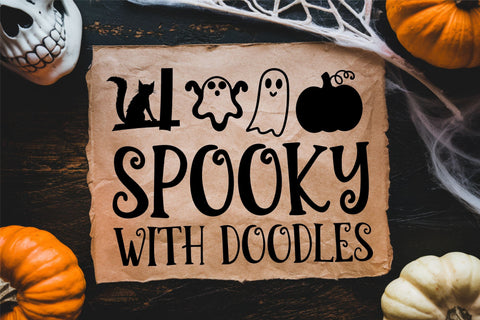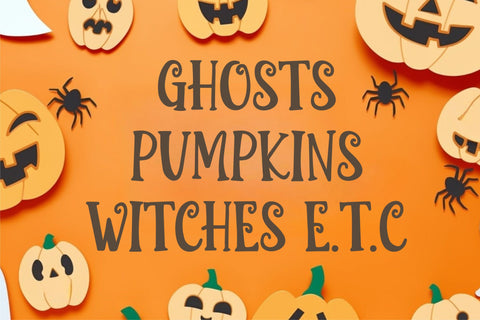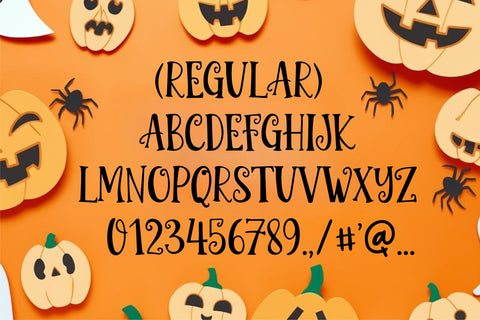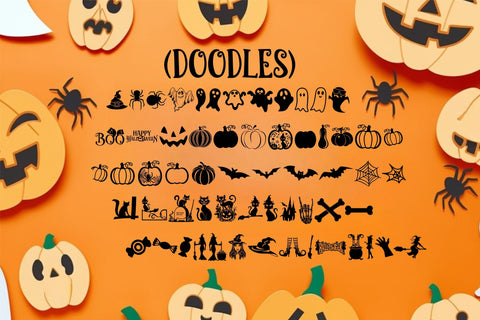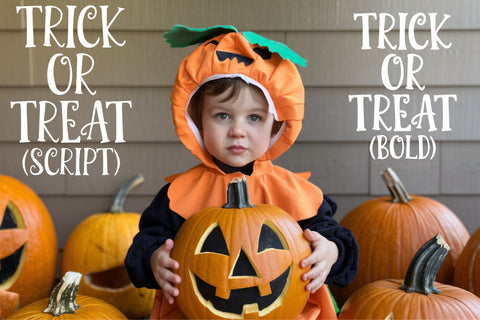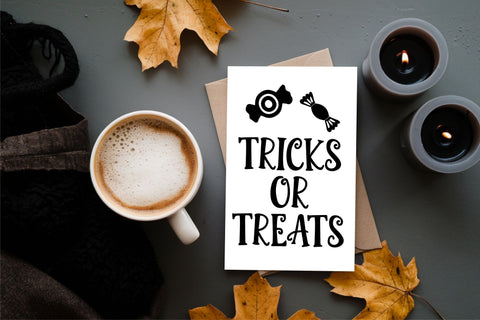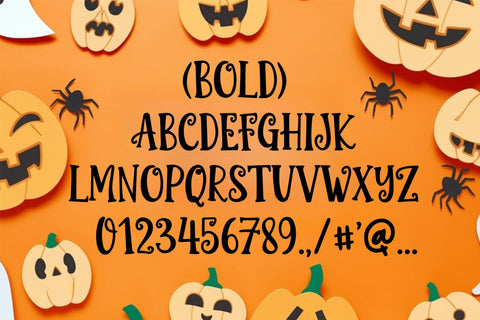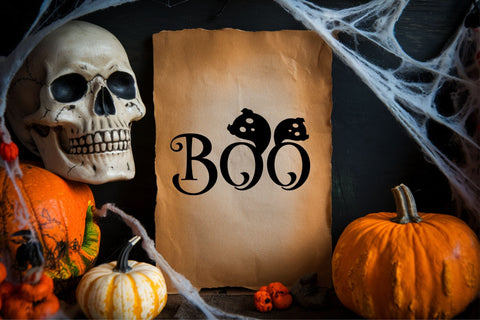
Spooky Font Family with Doodles | 3 Styles – Regular, Bold & Doodles | Halloween Digital Font for Crafts & Designs
Get into the Halloween spirit with the Spooky Font Family, perfect for adding a touch of fun and fright to your designs! This exclusive family font includes three unique styles: Spooky Regular, Spooky Bold, and Spooky Scribbles (Doodles), making it versatile for all your spooky-season projects. Whether you’re designing invitations, party décor, t-shirts, or Halloween crafts, this playful and spooky font will be the perfect addition to your toolkit.
• Spooky Regular: Perfect for spooky yet elegant titles and text.
• Spooky Bold: A bolder version to make your words pop with Halloween fun.
• Spooky Scribbles: Adorable hand-drawn doodles (baby ghosts, pumpkins, bats, etc.) to add flair to your designs.